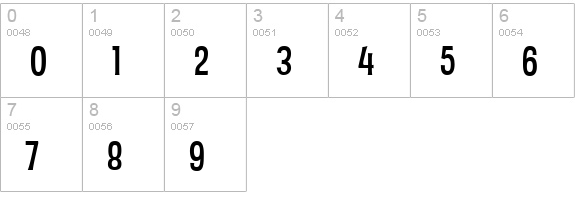
Sinzano-Regular Font Details
Sinzano-Regular is the standard, neutral variant in the Sinzano typeface family \xE2\x80\x94 well suited to general body text, paragraphs, and standard typographic work.
Sinzano-Regular is a modern and versatile font that strikes the perfect balance between professionalism and creativity. With its clean lines and elegant curves, this typeface is suitable for a wide range of design projects, from branding to web design to printed materials. The timeless style of Sinzano-Regular makes it a reliable choice for any designer looking to add a touch of sophistication to their work. What sets Sinzano-Regular apart is not only its aesthetic appeal but also its accessibility. This font is available for free download at FontsMarket.com, making it easy for designers of all levels to access and use in their projects. Whether you're a seasoned professional or just starting out, Sinzano-Regular offers a high-quality and stylish option that is sure to elevate your designs. Download Sinzano-Regular today and see the difference it can make in your next project.